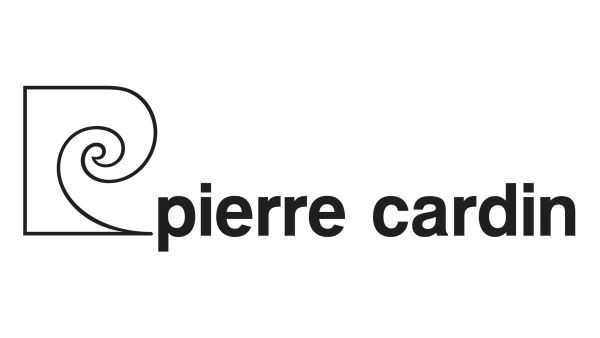
Pierre Cardin Font
What Font is Pierre Cardin?
Pierre Cardin Font is most likely based on Helvetica Pro Bold, a timeless and versatile sans-serif typeface recognized for its clean, modern, and elegant design. The bold weight of Helvetica perfectly complements Pierre Cardin’s sophisticated and futuristic aesthetic, reflecting the brand’s balance between modern innovation and classic style. While Helvetica Bold is a commercial font, we’ve also found a free alternative font that captures the same refined and contemporary essence for personal projects.
About Pierre Cardin
Pierre Cardin is a legendary French fashion brand founded by Pierre Cardin in 1950. Known for its avant-garde and space-age designs, the brand pushed the boundaries of traditional couture by introducing geometric shapes, unisex styles, and futuristic concepts. Over the decades, Pierre Cardin became synonymous with innovation, creativity, and bold fashion experimentation.